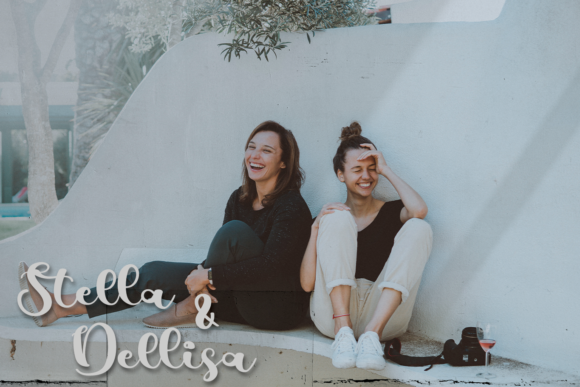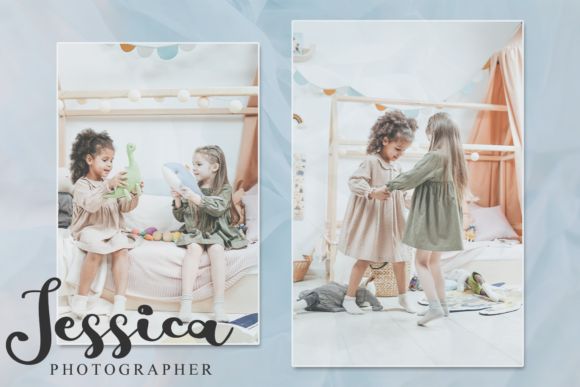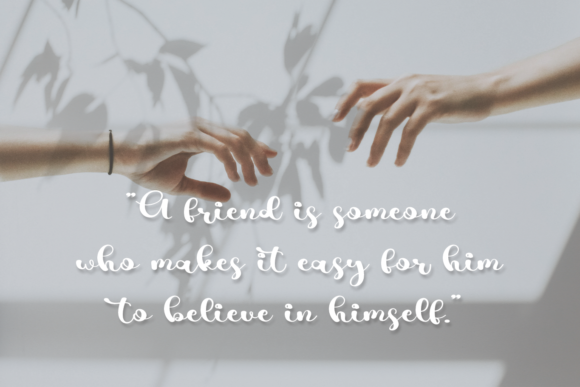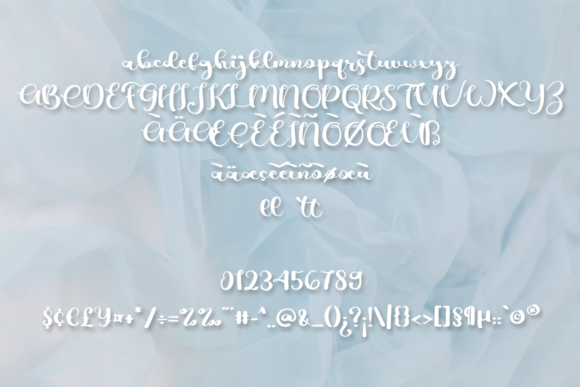
Introducing Best Friends Font: The Epitome of Sophistication and Elegance
In the world of typography, a font can make or break a design project. When it comes to creating a lasting impression, the right font can elevate your work from ordinary to extraordinary. For designers and crafters seeking a font that exudes sophistication and elegance, look no further than Best Friends Font. This chic, refined script font is the perfect match for any project, thanks to its stylish alternates and ligatures.
The Characteristics of Best Friends Font
Best Friends Font is a beautifully crafted script font that boasts a range of characteristics that set it apart from other fonts. Its refined and elegant appearance makes it ideal for use in a variety of design projects, from wedding invitations and branding materials to packaging and advertising. The font’s stylish alternates and ligatures add a touch of sophistication, allowing designers to create unique and eye-catching text.
What Makes Best Friends Font So Versatile?
One of the key features that makes Best Friends Font so versatile is its range of alternates and ligatures. These special characters allow designers to customize their text, creating a unique look that is tailored to their specific project. Whether you’re looking to add a touch of whimsy or create a more formal, elegant appearance, Best Friends Font has the flexibility to adapt to your needs.
The Benefits of Using Best Friends Font
So, why choose Best Friends Font for your next design project? Here are just a few benefits of using this exceptional font:
- Elegance and Sophistication: Best Friends Font exudes refinement and poise, making it perfect for high-end branding and design projects.
- Versatility: With its range of alternates and ligatures, Best Friends Font can be used in a variety of design projects, from formal to informal.
- Easy to Read: Despite its elegant appearance, Best Friends Font is easy to read, making it perfect for use in body text as well as headlines.
- Customizable: With its range of alternates and ligatures, designers can customize their text to create a unique look that is tailored to their specific project.
How to Use Best Friends Font in Your Design Projects
Using Best Friends Font in your design projects is easy. Here are a few tips to get you started:
- Pair it with a Sans Serif Font: For a classic, elegant look, pair Best Friends Font with a sans serif font, such as Arial or Helvetica.
- Use it for Headlines and Titles: Best Friends Font is perfect for use in headlines and titles, where its elegant appearance can really shine.
- Experiment with Alternates and Ligatures: Don’t be afraid to experiment with Best Friends Font’s alternates and ligatures to create a unique look that is tailored to your specific project.
In conclusion, Best Friends Font is a truly exceptional script font that is perfect for designers and crafters seeking to add a touch of sophistication and elegance to their design projects. With its stylish alternates and ligatures, this font offers a level of versatility and customization that is hard to find elsewhere. Whether you’re working on a wedding invitation, branding materials, or packaging, Best Friends Font is the perfect choice.
Key Features of Best Friends Font
- Refined and elegant script font
- Stylish alternates and ligatures
- Perfect for use in a variety of design projects
- Easy to read
- Customizable
Overall, Best Friends Font is a must-have font for any designer or crafter looking to elevate their design projects and create a lasting impression.